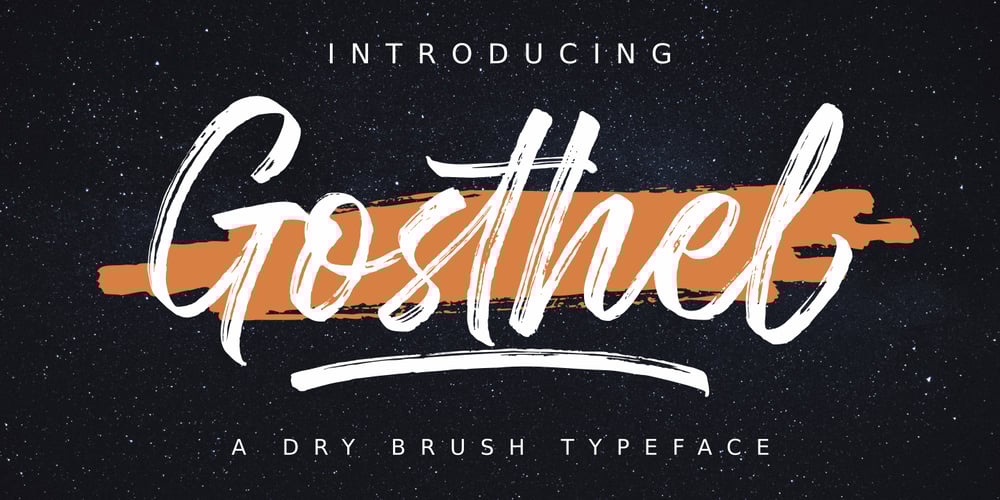
Gosthel Font Family was designed by Faja Abdul Fatah and published by Sibelumpagi. Gosthel contains 2 styles and family package options. Introducing Gosthel, a dry Brush typeface, carefully hand-brushed. Comes with natural and organic flowing brush pen, make the letters look cool and classy. Gosthel has a unique style and charming characteristics from the brush texture. Gosthel is a good choice for many different projects such as logos & branding, invitation, stationery, wedding designs, social media posts, advertisements, product packaging, product designs, label, photography, watermark, special events or anything.